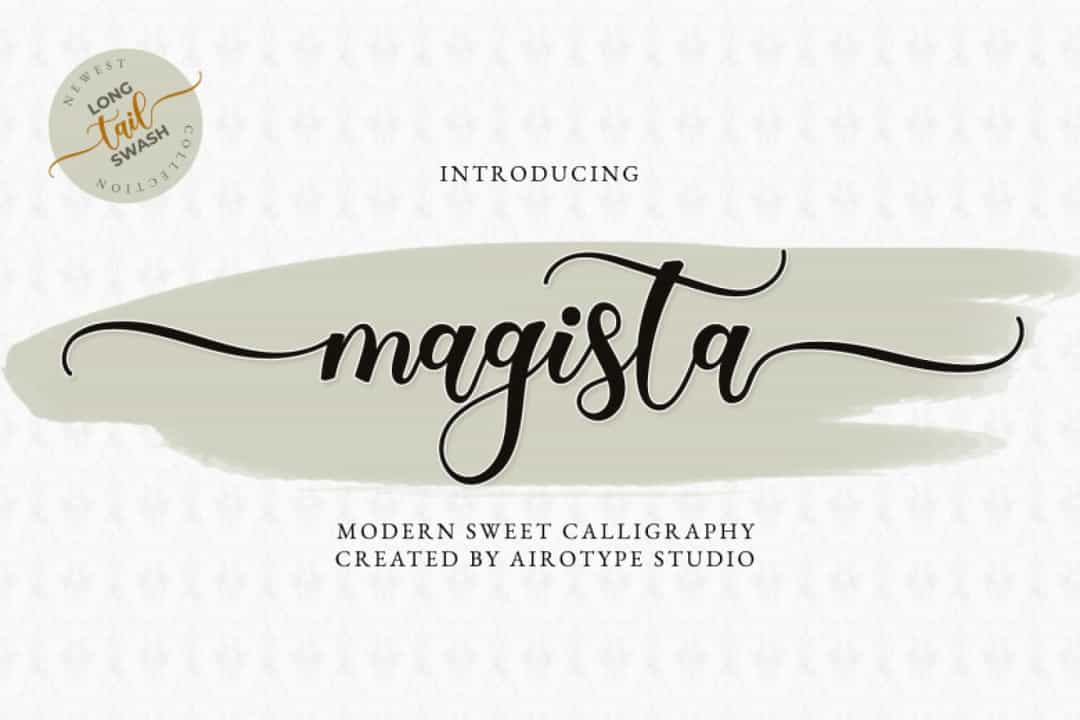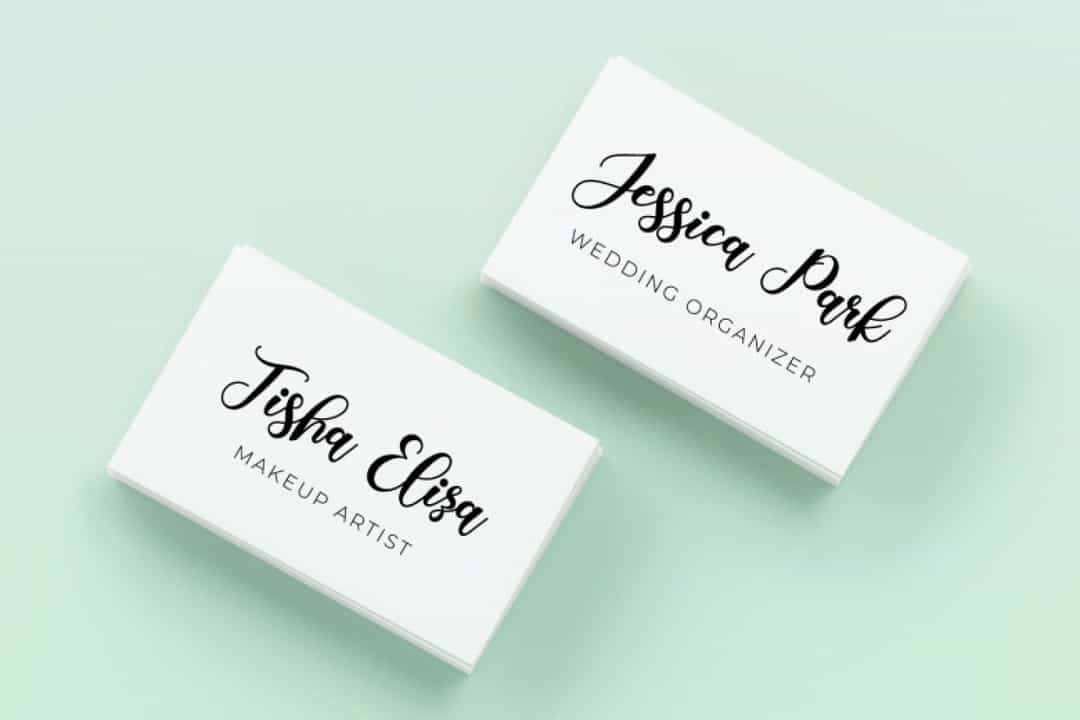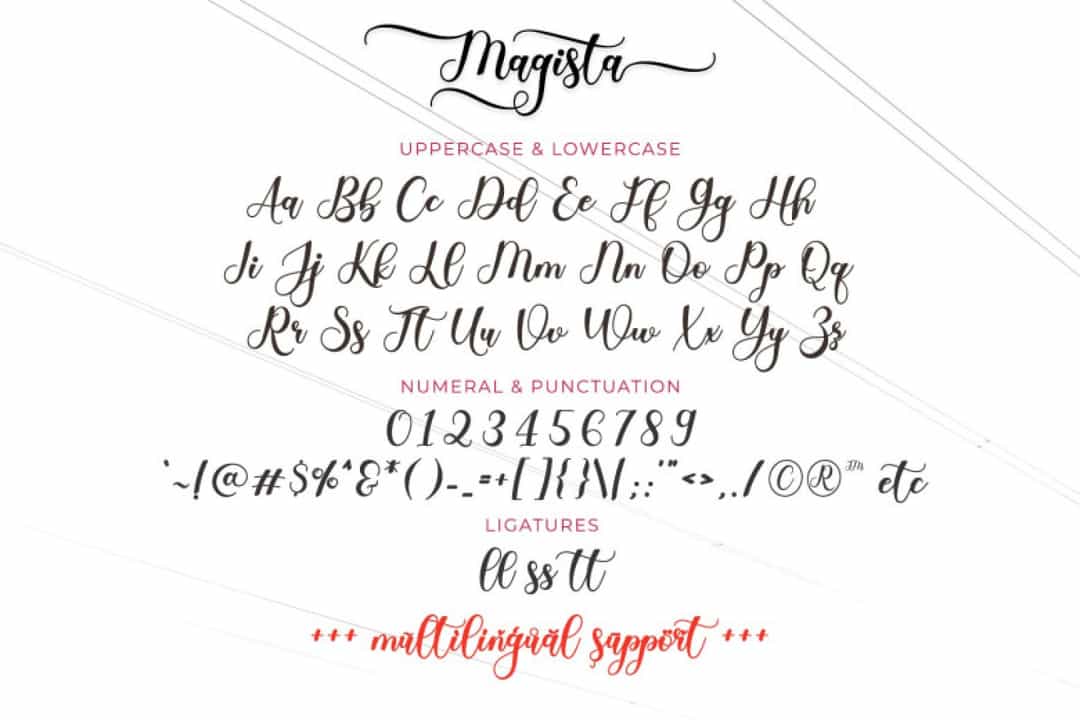
Discover Magista Font, part of the Calligraphy collection—a versatile and unique font perfect for adding a personal touch to your projects. Download it for free and enjoy crafting designs with style, from invitations to social media posts. This font is available exclusively for personal use, giving you the freedom to create without limits. Unlock your creativity with Magista Font today!
Magista is an elegant calligraphy font with delicate yet sweet swashes that can bring any design idea to life – from titles and letterheads to stationery! PUA encoded, you’re able to quickly access all the symbols and swashes you need with no problem at all!